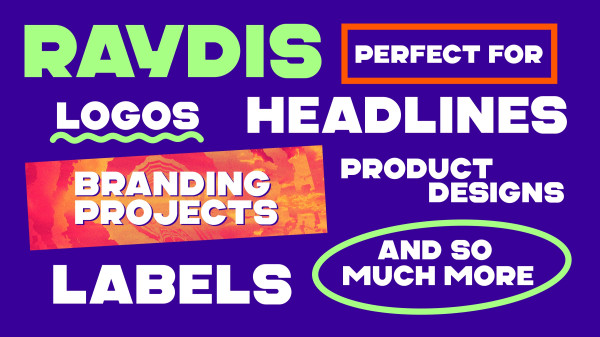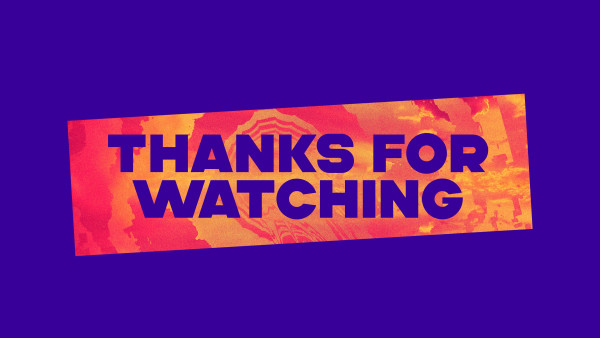
Raydis Font
Raydis Font is a bold and powerful display sans serif font designed to make a clear and impactful statement.
Raydis is perfect font for headlines, branding projects, logos, motion graphics, movie titles, sports promotion and future technology.